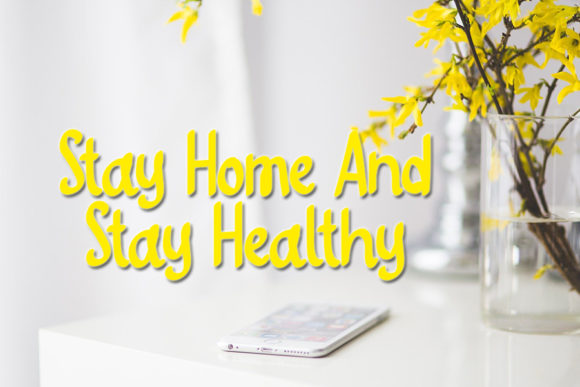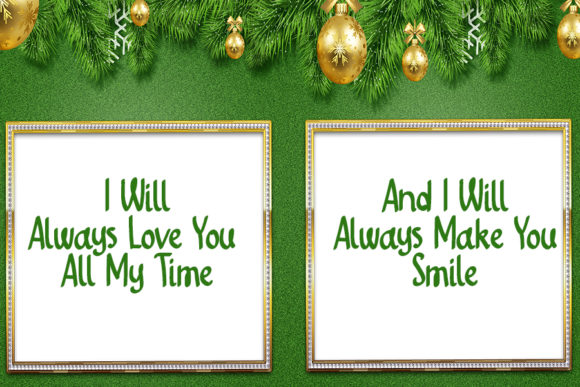
Make Me Happy Font
db-ku.com - Script & Handwritten -- Make Me Happy is a classic handwritten font. Use this font for any crafting project that requires a personalized look!